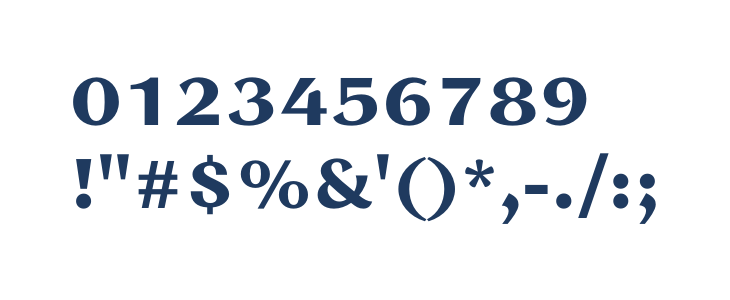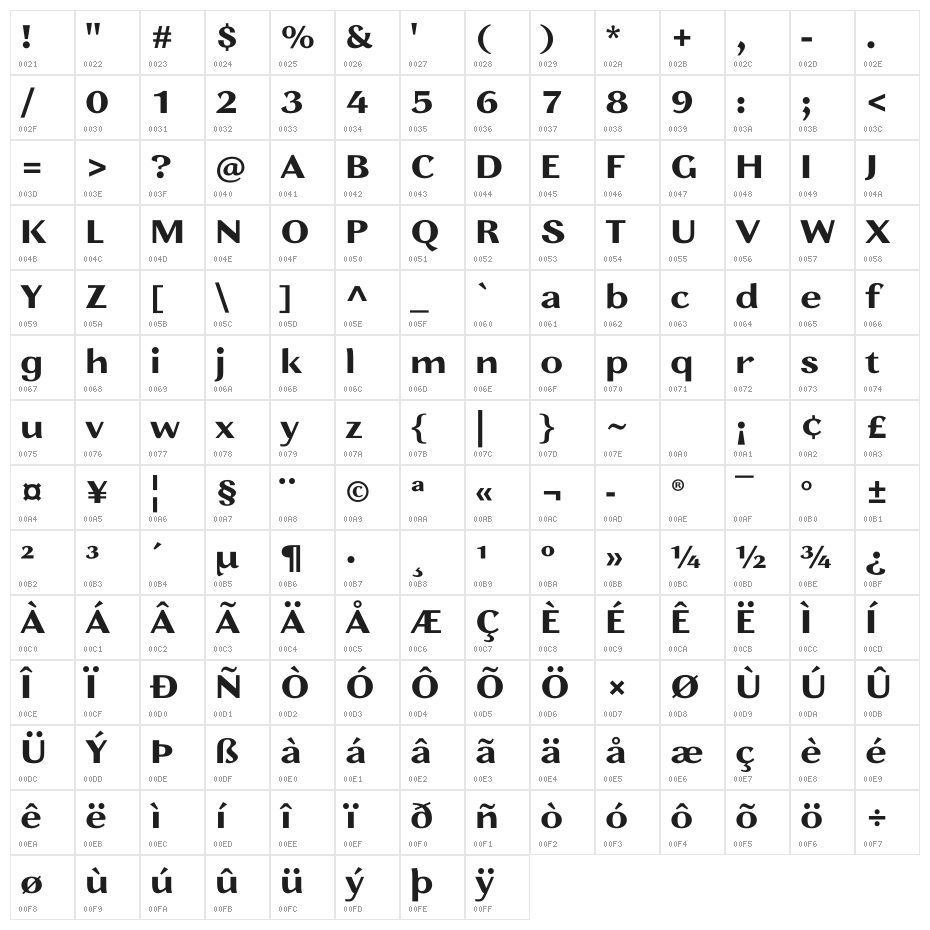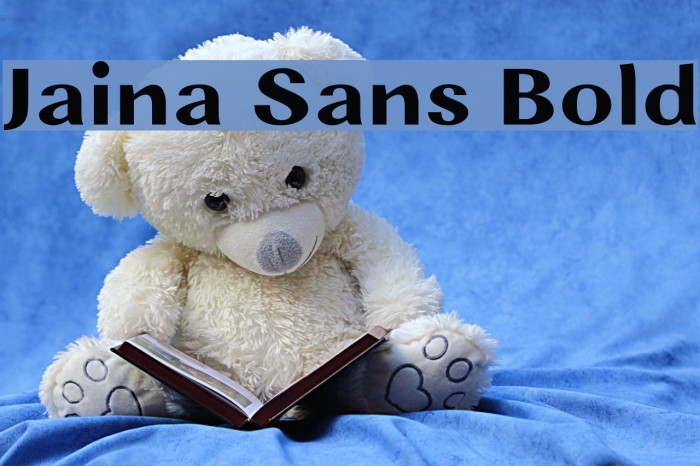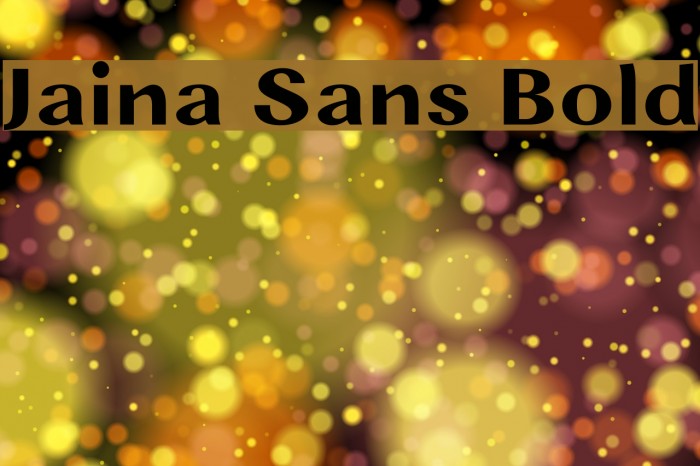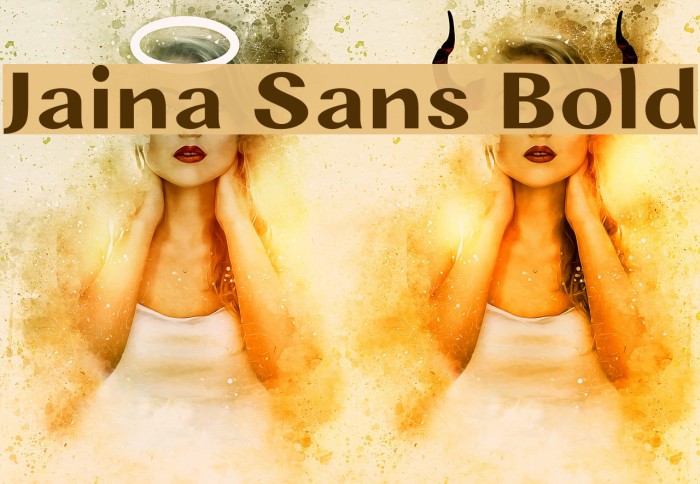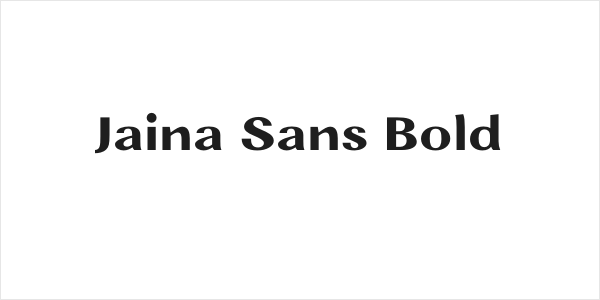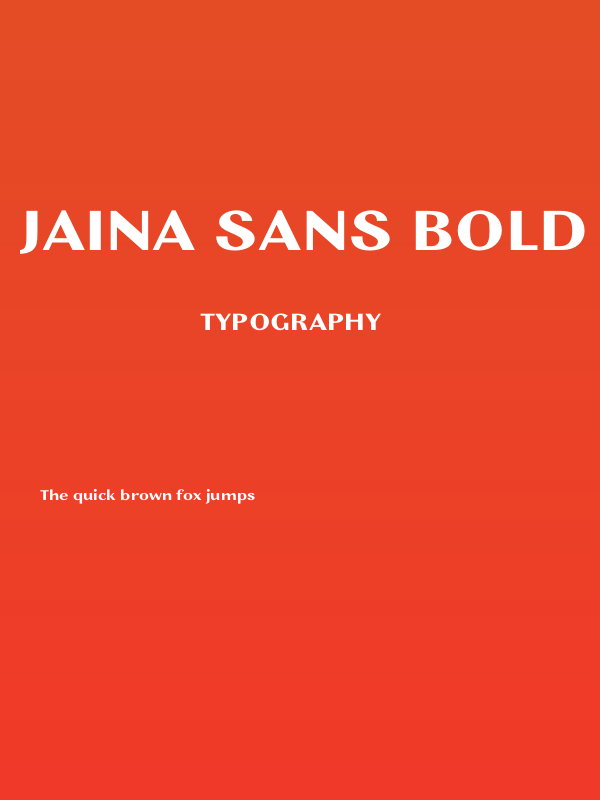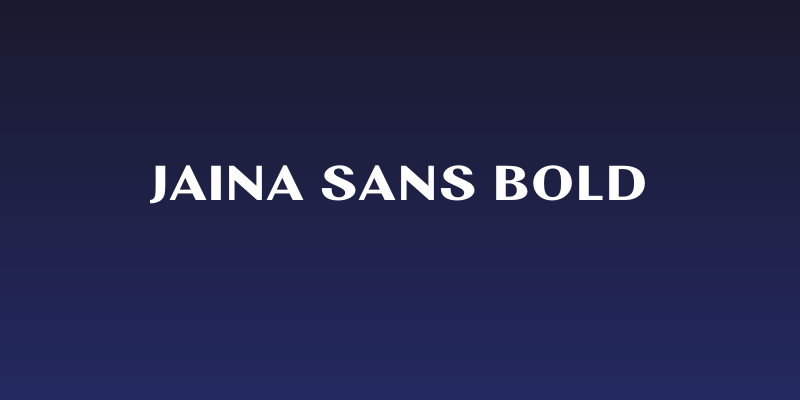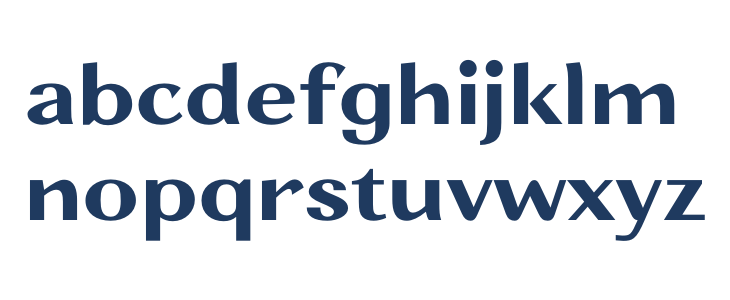
Jaina Sans Bold Font
Jaina Sans Bold Description
This typeface presents a clean and modern aesthetic with a bold weight, making it highly legible and impactful. The characters are well-defined with a consistent stroke width, contributing to a balanced and harmonious appearance. The uppercase letters are strong and commanding, while the lowercase letters maintain a friendly and approachable feel. The numerals are clear and easy to read, and the special characters are distinct and versatile. This font is ideal for creating a professional and contemporary look, suitable for various design needs.
| Use Case | Headlines, Logos, Digital interfaces |
| Proposed Projects | Ideal for branding, advertising, headlines, and digital interfaces. |